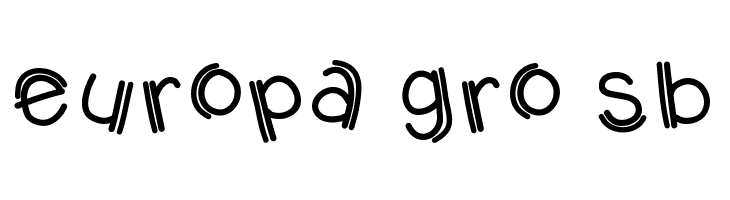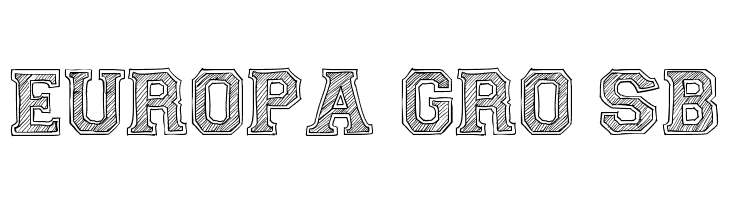
A grungy, distressed font with a splattered ink effect and irregular strokes.
A playful, hand-drawn font with a bouncy, energetic style and double-line effect.
A bold, distressed font with a grunge texture and rugged appearance.
A bold, decorative font with a vintage, three-dimensional style.
A bold, sketch-style decorative font with a collegiate feel.
An ornate, decorative font with distressed textures and elaborate flourishes.